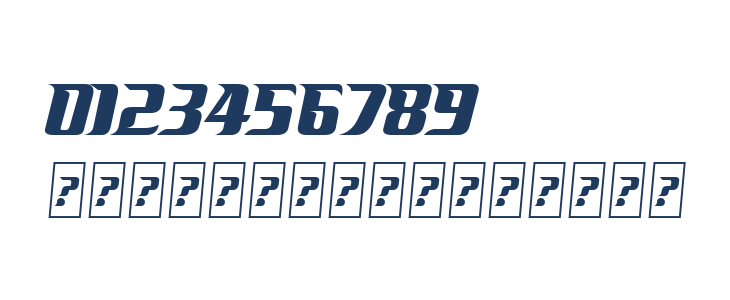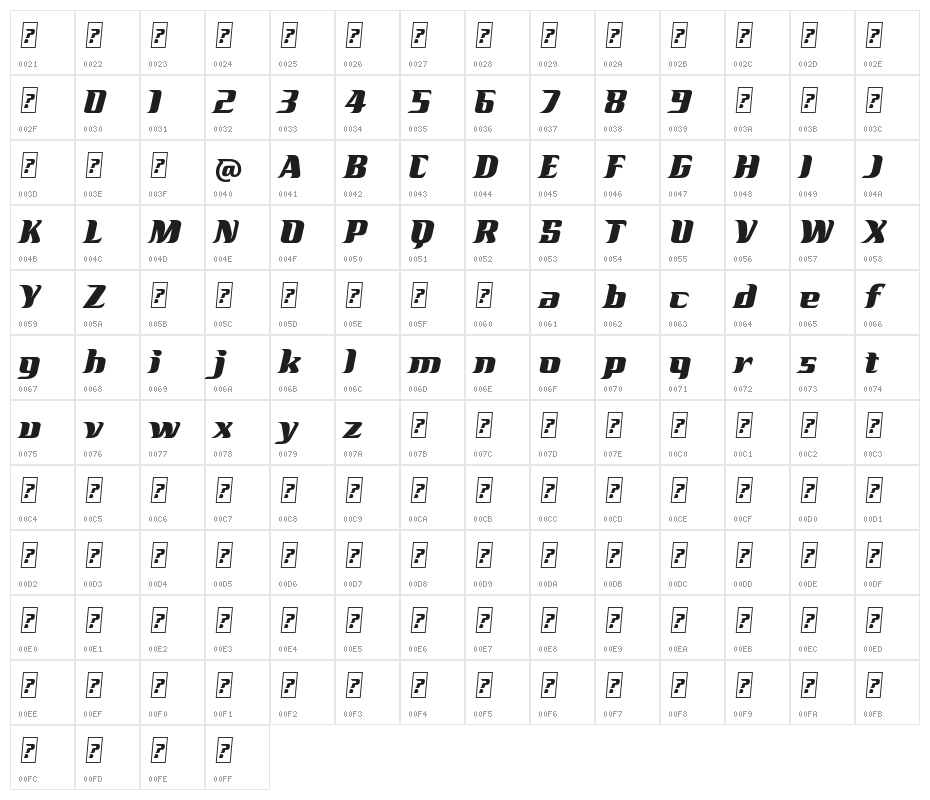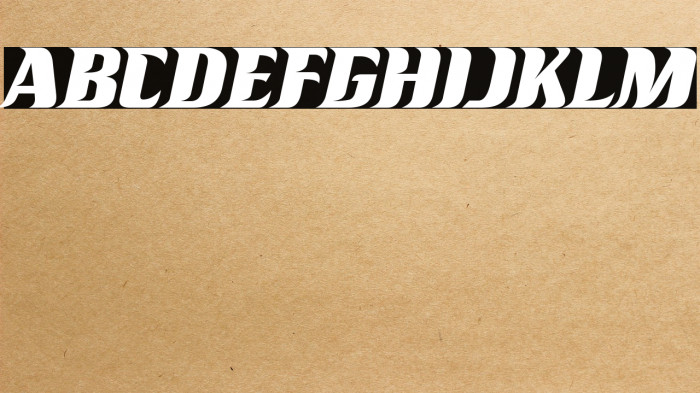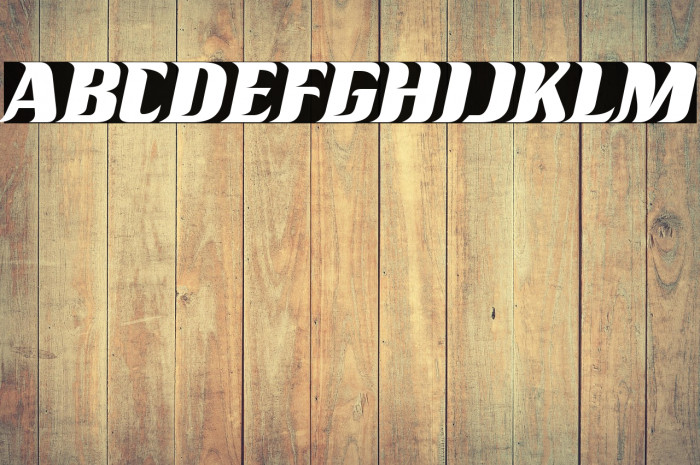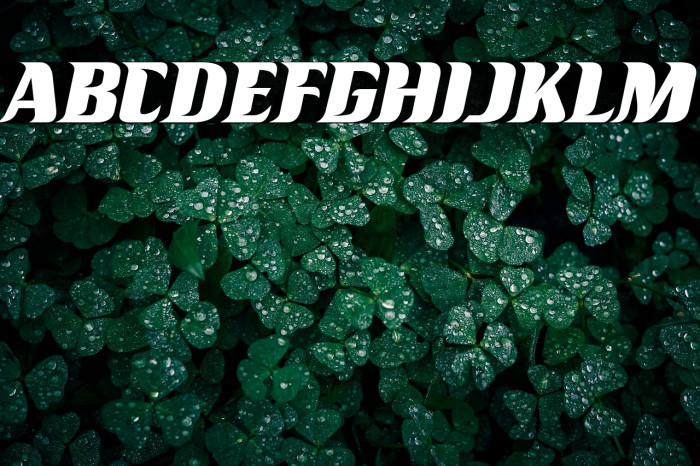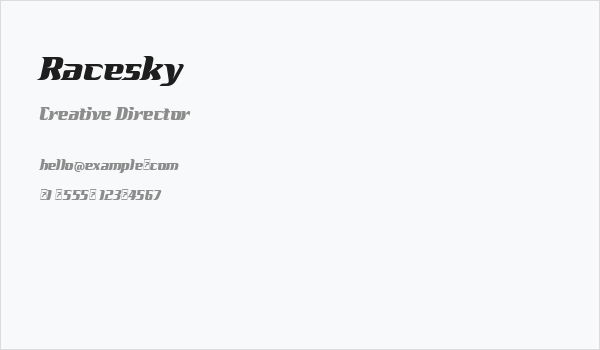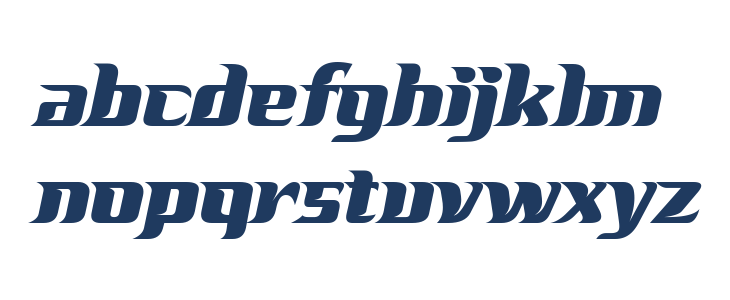
Racesky Font
Racesky Description
This font features a bold and dynamic style with a strong emphasis on angular lines and sharp edges. The uppercase letters are particularly striking, with a forward-leaning stance that conveys a sense of speed and motion. The lowercase letters maintain this energetic feel, providing a cohesive look across all characters. The numerals are equally bold, ensuring they stand out in any design. This font is ideal for projects that require a modern and edgy aesthetic, such as sports branding, automotive designs, or dynamic advertising campaigns. Its unique style makes it a standout choice for headlines and logos.